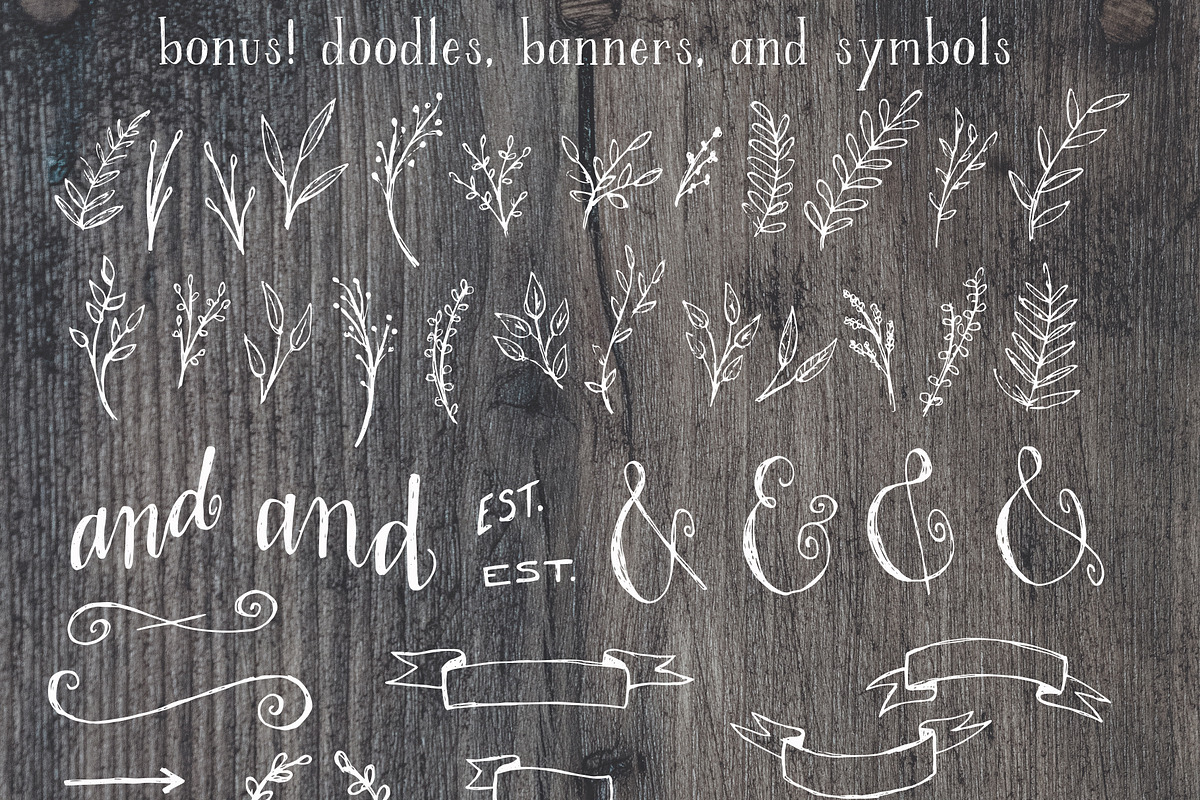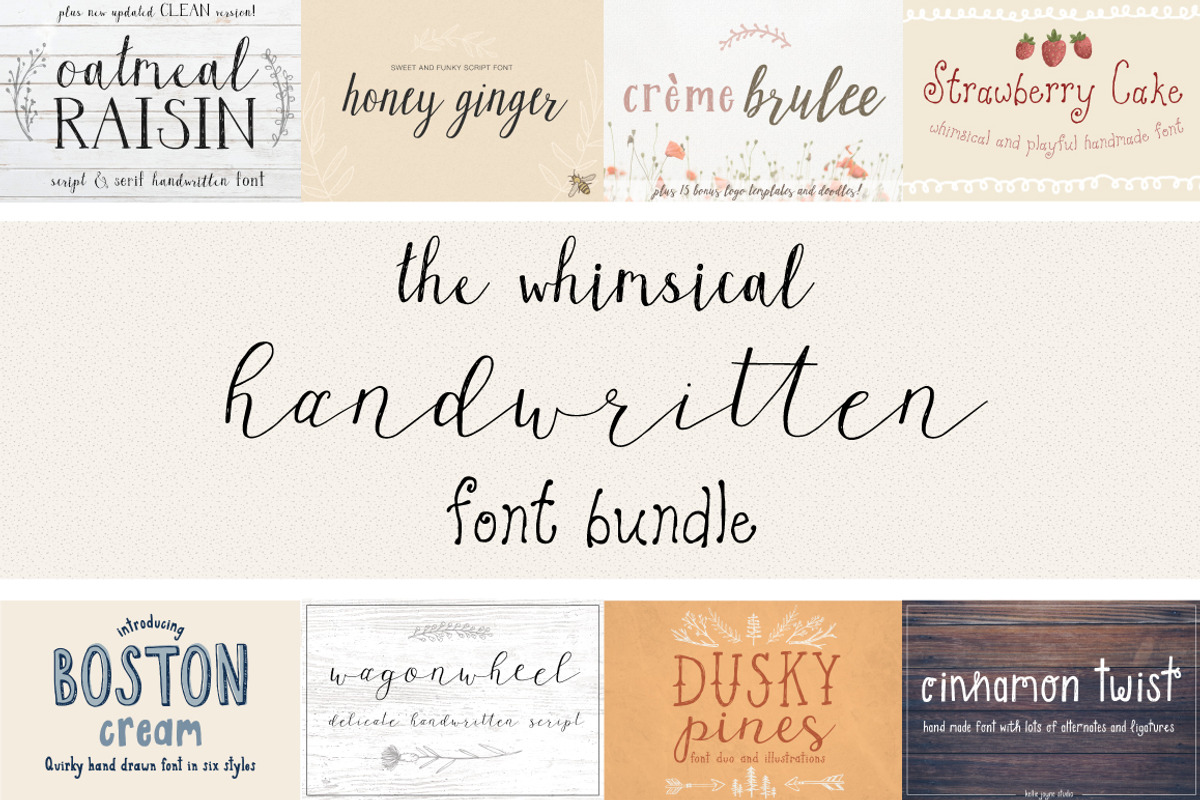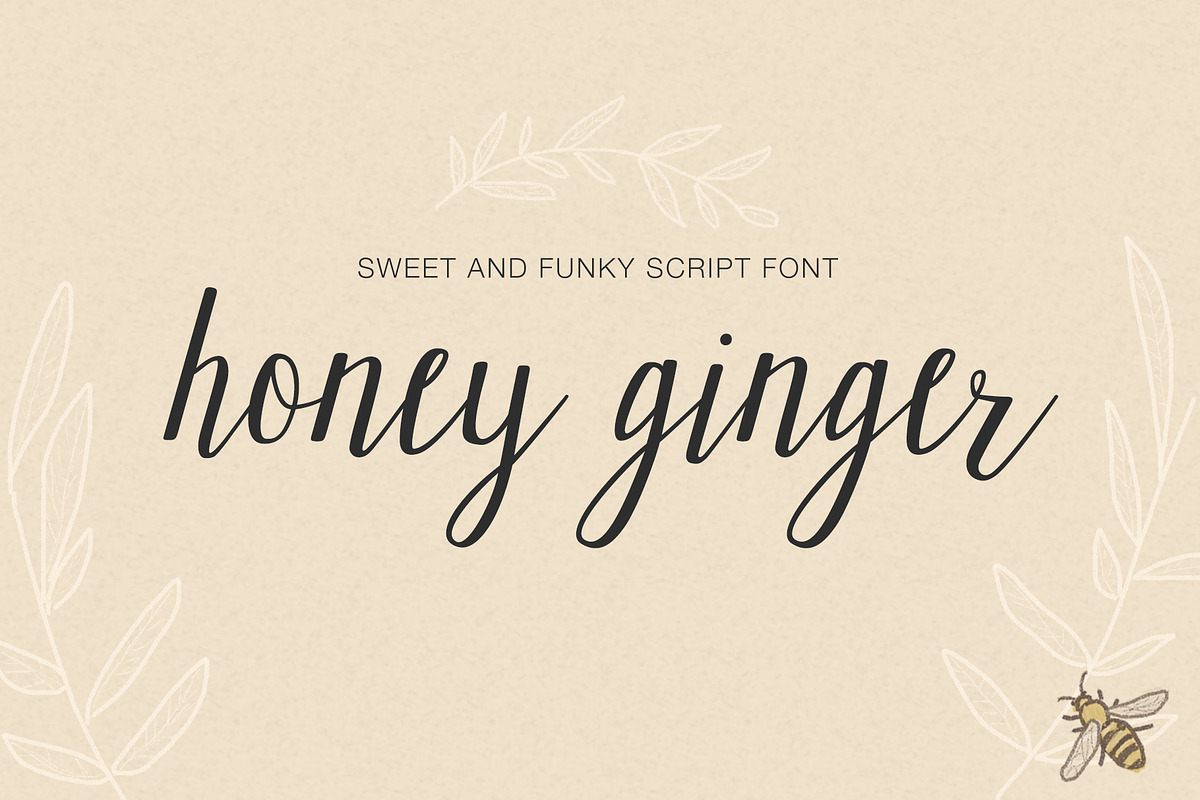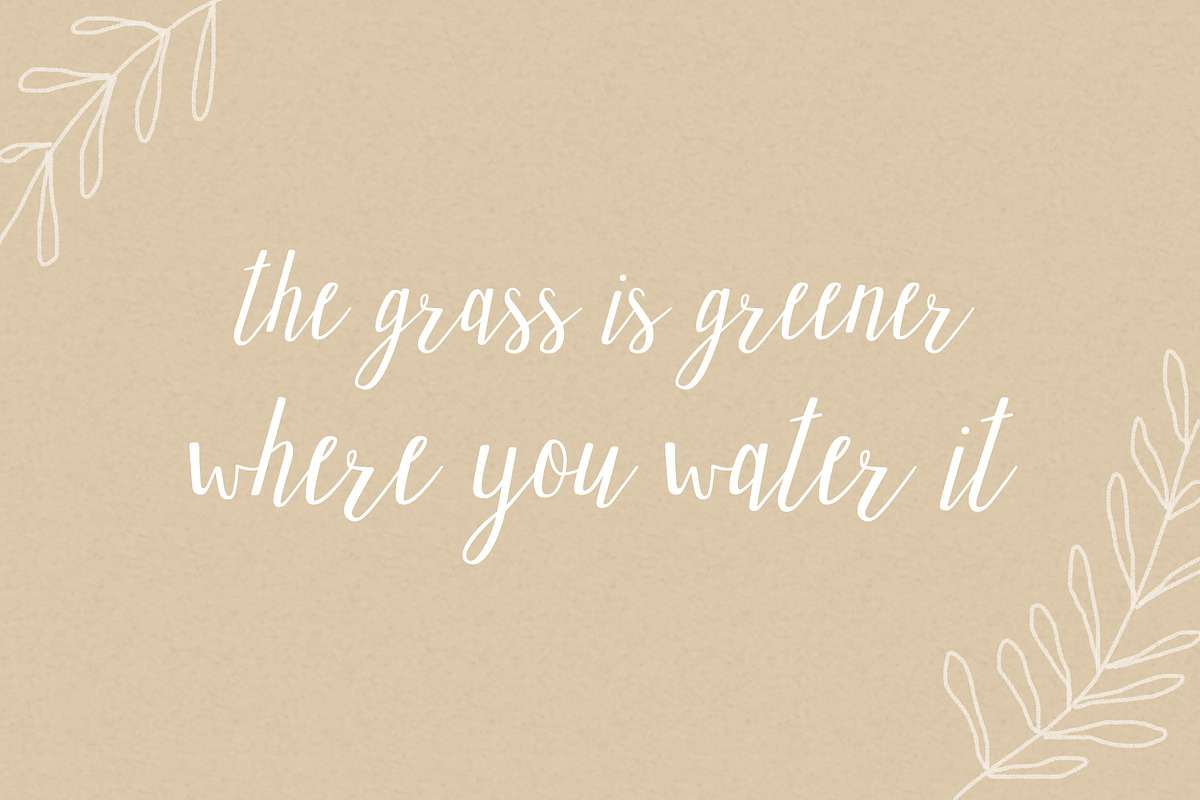
Whimsical Handwritten Font Bundle
The Whimsical Handwritten Font Bundle This bundle includes 18 lovingly handwritten fonts in a variety of styles: script, serif, sans, and outline fonts. They all have a whimsical and playful quality. Many hand drawn illustrations are also included to add a unique touch to your designs!
- Oatmeal Raisin:
- Honey Ginger:
- Creme Brulee:
- Strawberry Cake:
- Boston cream:
- Wagonwheel:
- Dusky Pines:
- Cinnamon Twist: